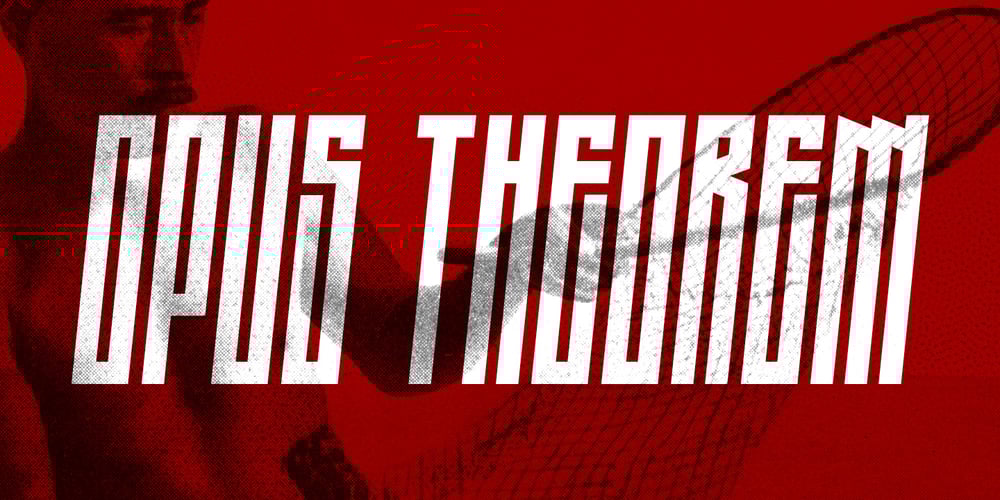
Opus Theorem
Opus Theorem font
Opus Theorem Font Family was designed by David Alexander Slaager and published by Fonts of Chaos. Opus Theorem contains 7 styles and family package options. Opus Theorem is a nice bold brutal font taking inspiration from the modern street art writers. Opus Theorem is available in normal and italic mode and lines variation. The spacing between line is the same than the weight of the lines.